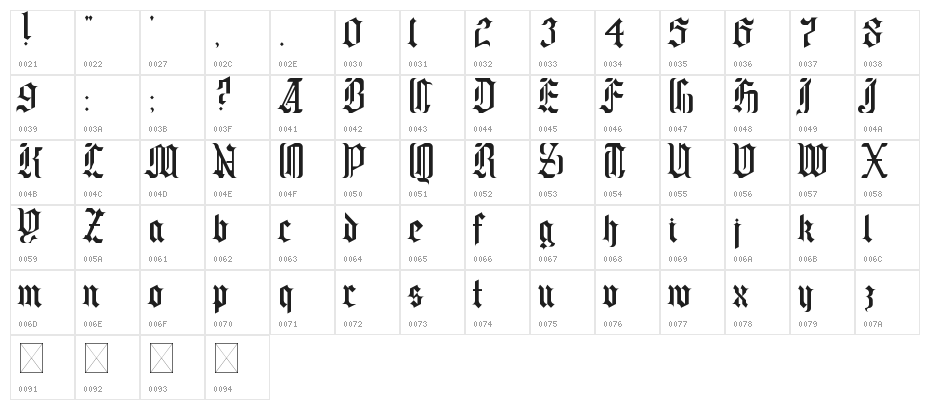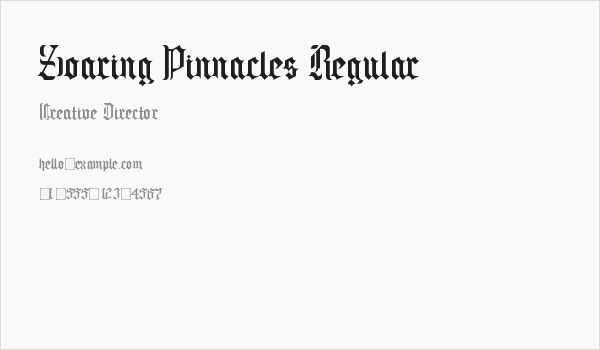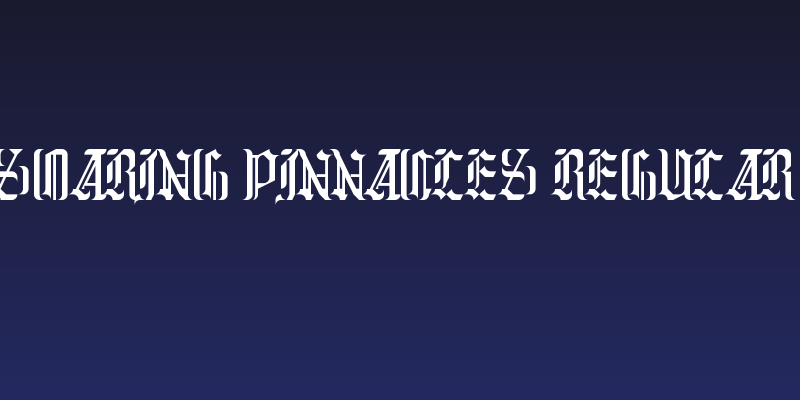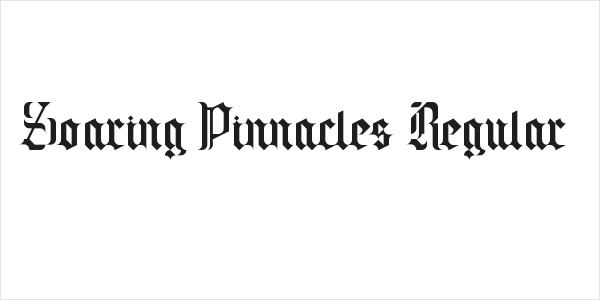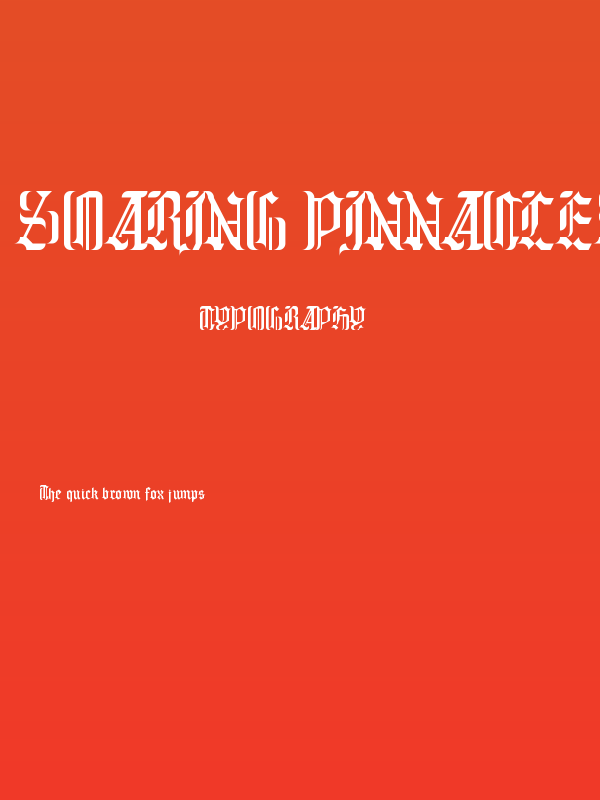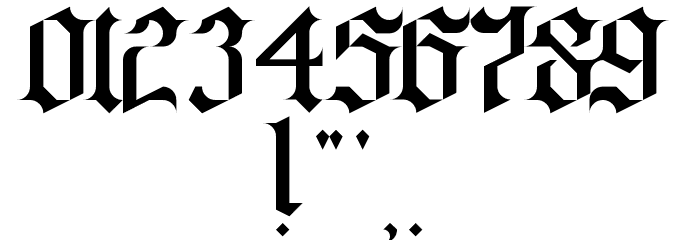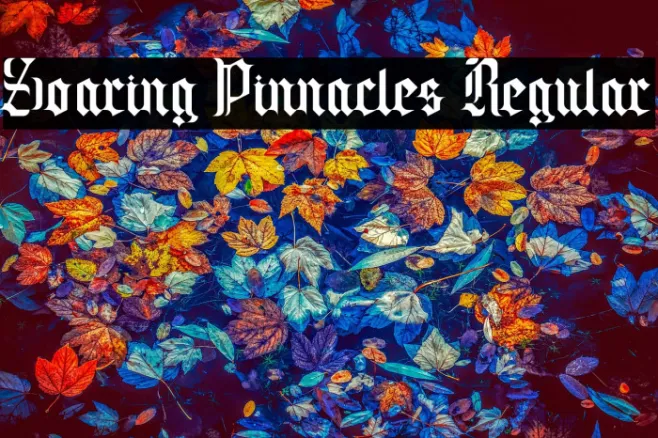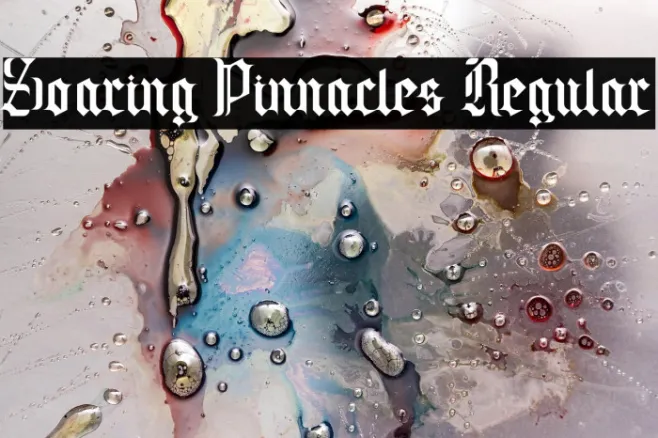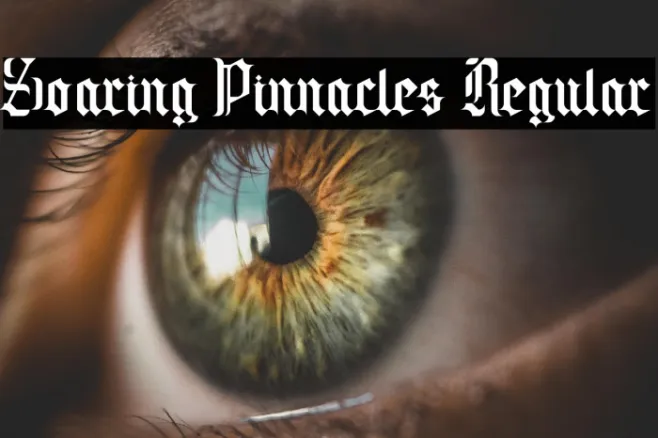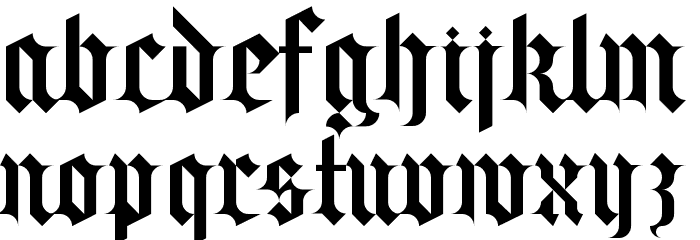
Soaring Pinnacles Regular Font
Soaring Pinnacles Regular Description
This font features a bold and intricate design, reminiscent of traditional Gothic or Blackletter styles. The characters are highly stylized with sharp, angular lines and dramatic flourishes, giving it a distinct medieval appearance. The uppercase letters are particularly ornate, with elaborate serifs and decorative elements that enhance their visual impact. The lowercase letters maintain the same stylistic elements but are slightly more subdued, allowing for readability while still retaining the font's overall aesthetic. Numbers and special characters are designed to match the ornate style, ensuring consistency across all text elements.
| Proposed Projects | Ideal for projects requiring a medieval or historical theme, such as event posters, book covers, or themed branding materials. |